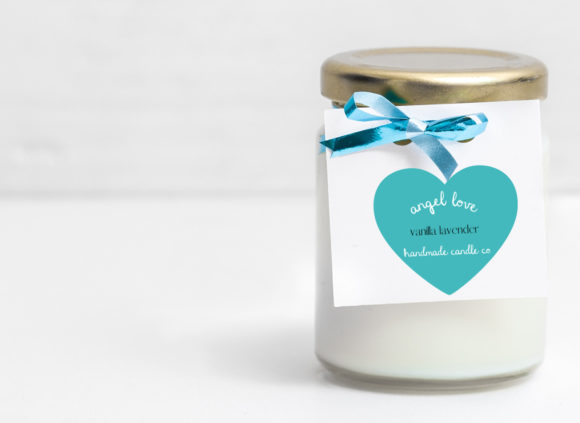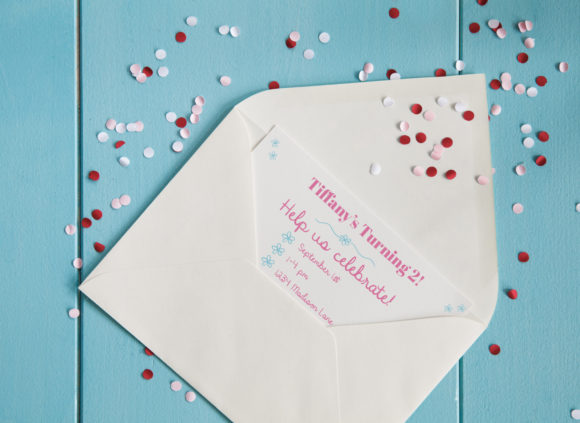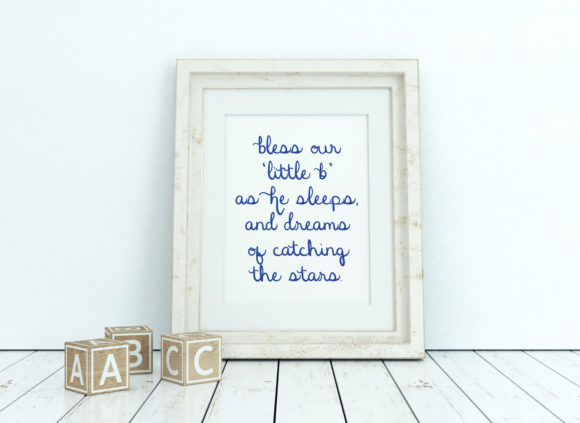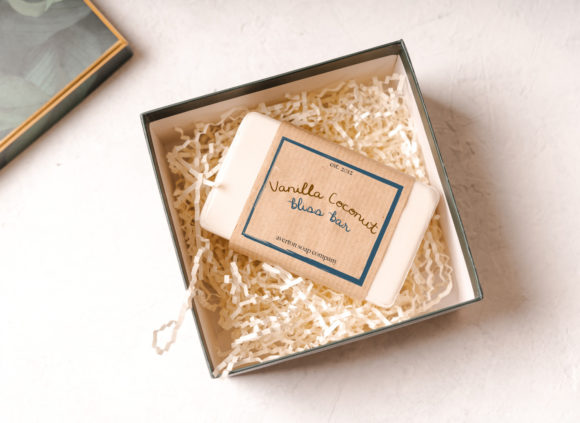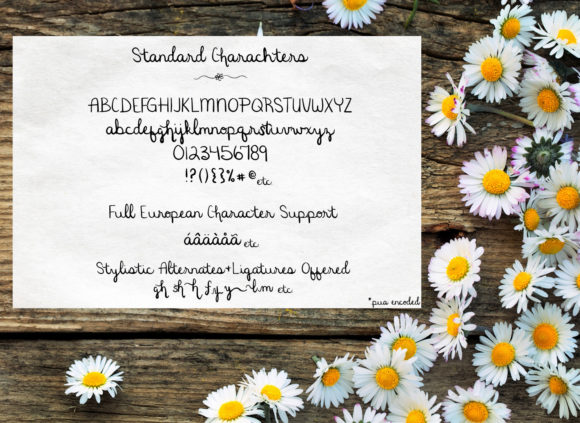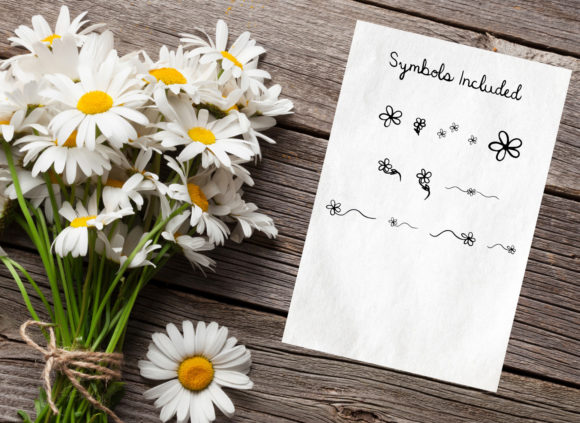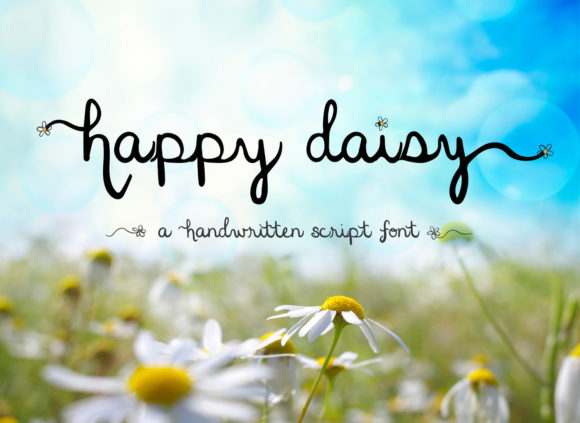
Introducing Happy Daisy Font: The Perfect Addition to Your Design Arsenal
Are you a designer or crafter looking for a font that exudes elegance and sophistication? Look no further than Happy Daisy Font, a delicate and flowing handwritten font that’s sure to elevate your designs to the next level. In this article, we’ll dive into the features and benefits of Happy Daisy Font, and explore how it can be used to enhance your creative projects.
A Delicate and Elegant Font
Happy Daisy Font is a beautiful, handwritten font that’s characterized by its delicate and elegant strokes. The font features well-balanced characters that are perfect for creating a wide range of designs, from feminine and whimsical to sophisticated and luxurious. Whether you’re working on a branding project, a craft tutorial, or a digital design, Happy Daisy Font is the perfect choice.
One of the standout features of Happy Daisy Font is its PUA (Private Use Area) encoding. This means that you can access all of the glyphs and swashes with ease, giving you complete creative control over your designs. With PUA encoding, you can easily insert special characters, ligatures, and swashes into your text, allowing you to create unique and eye-catching designs that showcase your creativity.
Happy Daisy Font is incredibly versatile, making it suitable for a wide range of design applications. Whether you’re creating:
• Stationery and invitations
• Branding and packaging designs
• Digital graphics and social media assets
• Craft tutorials and DIY projects
• Web designs and blogs
Happy Daisy Font is the perfect choice. Its elegant and flowing script is sure to add a touch of sophistication and whimsy to any design.
• Elegance and sophistication: Happy Daisy Font adds a touch of elegance and sophistication to any design, making it perfect for high-end branding and luxury projects.
• Flexibility: With its PUA encoding and range of glyphs and swashes, Happy Daisy Font offers endless creative possibilities.
• Uniqueness: Happy Daisy Font is a unique and distinctive font that’s sure to set your designs apart from the crowd.
Tips for Using Happy Daisy Font
• Experiment with different sizes and colors: Happy Daisy Font looks great in a range of sizes and colors, so don’t be afraid to experiment and find the perfect combination for your design.
• Mix and match with other fonts: Happy Daisy Font pairs well with a range of other fonts, so try mixing and matching it with other fonts to create a unique and eye-catching design.
• Use it for headlines and titles: Happy Daisy Font is perfect for headlines and titles, where its elegant and flowing script can really shine.